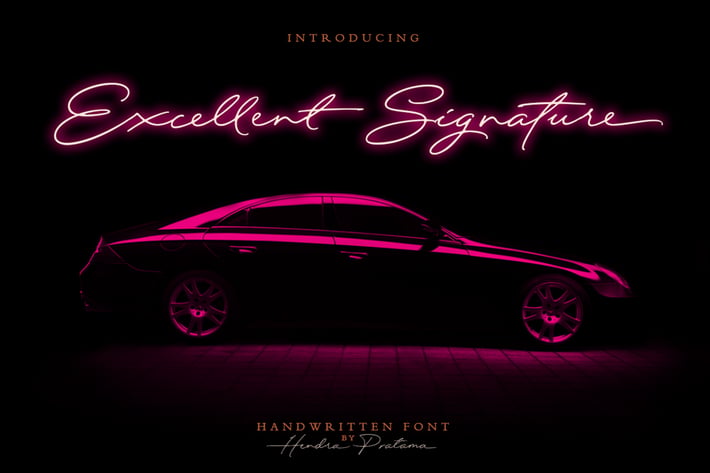
Excellent Signature Font
In a short description; Excellent Signature is made for Excellent Typography.
Things on my mind when i started to create this handwritten font is; This font has to be a good looking, elegant and feel luxurious.
And the most important thing is, this font will bring a good harmony when the letters are connected and paired each other.
No matter you make it large or small size, i believe with this font you can create a very elegant-readable signature for your personal or business name card.
A Luxurious Logotype for your Brand or Corporation.
Storefront, Signboard or a Neon Sign.
Magazine, Movie, or Book Titles, Photography, Wedding Invitation or T-shirt Design.
Flyer or Banner Ads, for web and printing, from Food, Fashion to a Cosmetics product , or even for Automobile Poster Design.
No limitations!
Totally 511 glyphs packed inside this font. I've separated all the alternates glyphs into several OpenType Features:
Stylistic Alternates/SALT
Contextual Alternates/CALT
Initial Forms/INIT
Terminal Forms/FINA
Ligatures/LIGA
Stylistic Set/SS01-09
This font will looks gorgeous when you combining with a Geometric Sans or a Serif Font. On my artwork, i use Raleway for Sans, and Traditional Arabic for Serif. I believe both fonts are free on Google Font or Typekit.